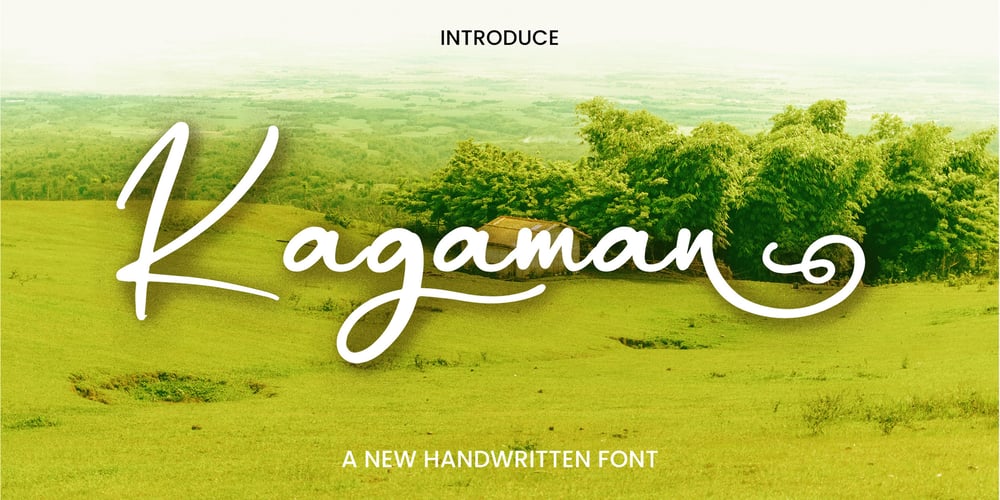
Kagaman
Kagaman font
Kagaman Font Family was designed by Dhoni Trihatmoko and published by Ayska. Kagaman contains 1 styles and family package options. Kagaman is a handwriting script with many ligatures that will make your project looks more natural. This font can be used for a variety of purposes, including quotes, branding, or wedding invitations. We keep this font looks modern, minimalist, elegant, readable, stylish, catchy and easy to use. Kagaman here to make your work to high level!!!